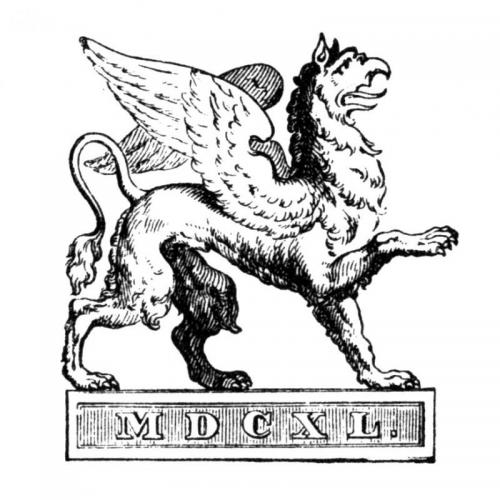
A printer's mark (or device, emblem, insignia) was a symbol used as a trademark by printers starting in the 15th century.
Dutch: drukkersmerk
French: marque d'imprimeur
German: Druckermarke
Italian: marca tipografica
Polish: sygnet wydawniczy
Russian: издательская марка
Spanish: marca de imprenta